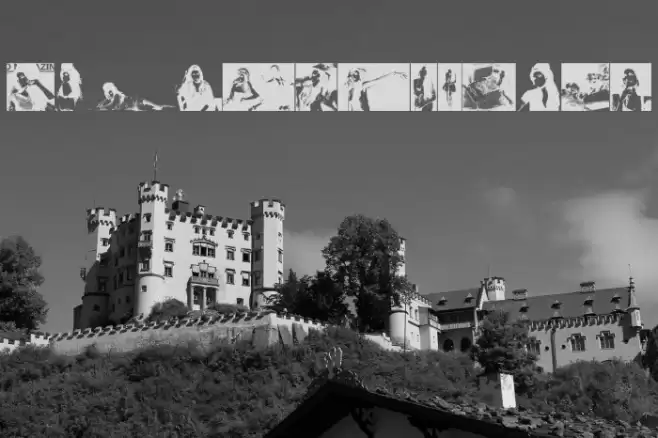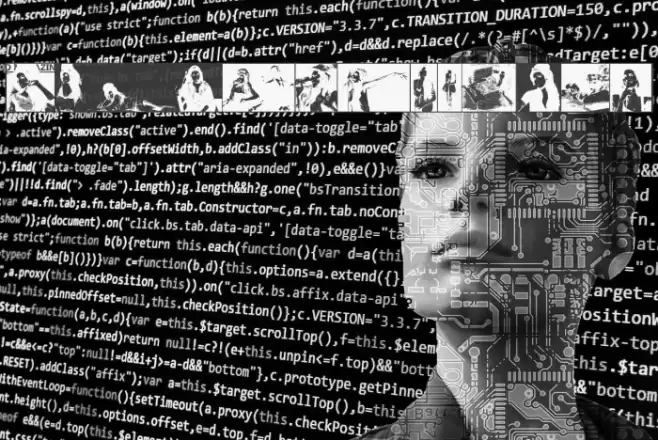
AmyBats5 Font
AmyBats5 Description
A decorative display font composed of high-contrast, black-and-white photographic images within rectangular frames, each representing a different character. The images are stylized and have a strong visual impact, making each letter or symbol unique and highly illustrative.
A display font using stylized photographic images for each character from Uncategorized fonts.
- Proposed Projects: Album covers, event posters, editorial headlines, artistic branding, music-related graphics.
- Overall Style: Decorative, Artistic, Modern
- Use Case: Headlines, Posters, Artistic projects, Logos